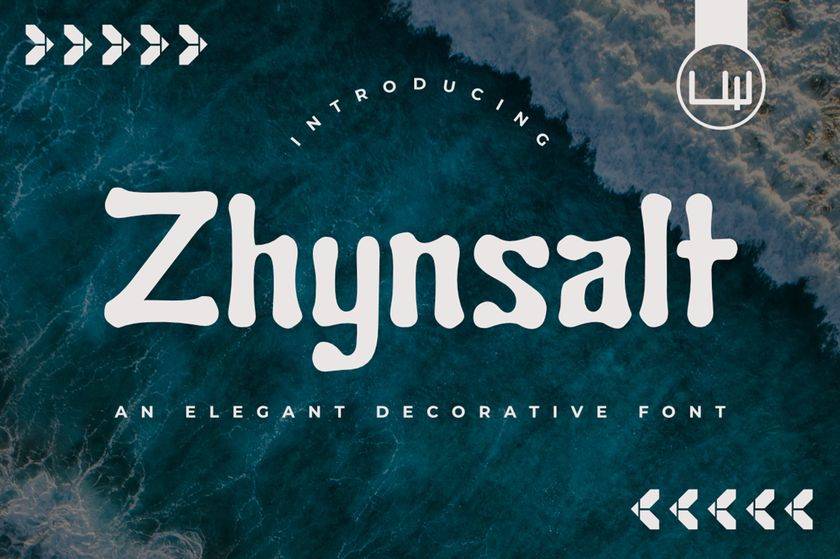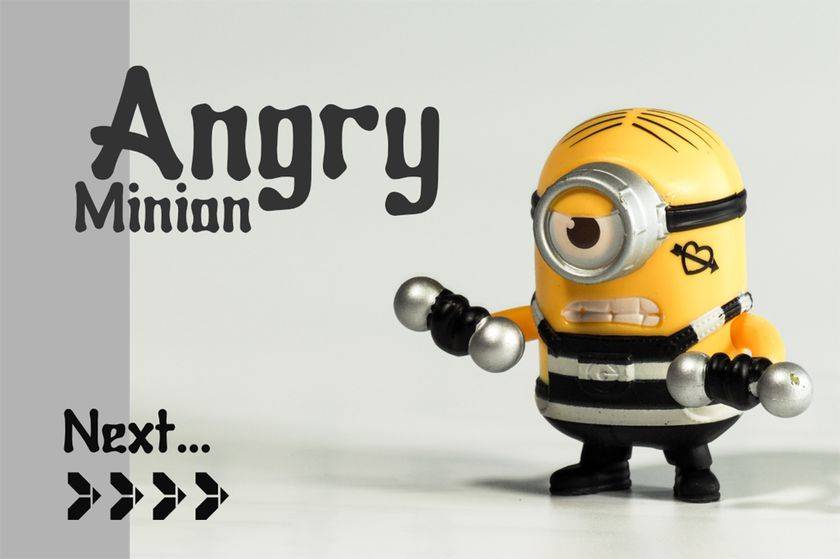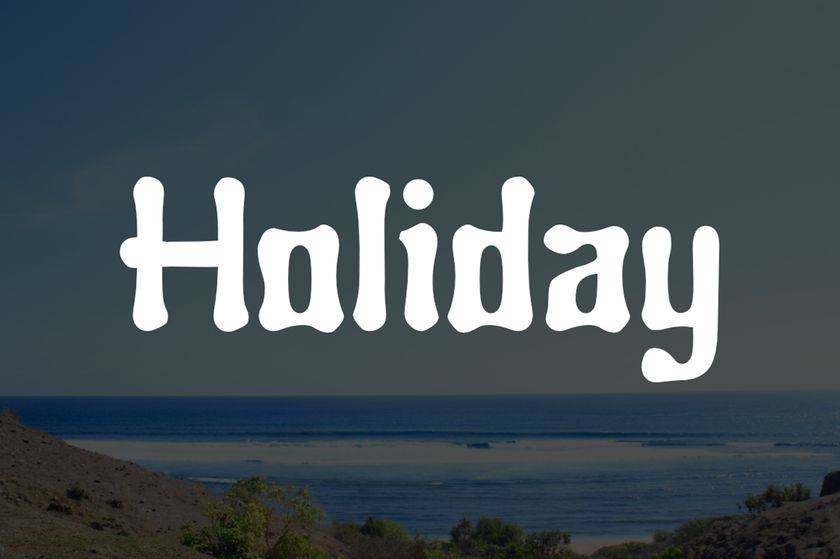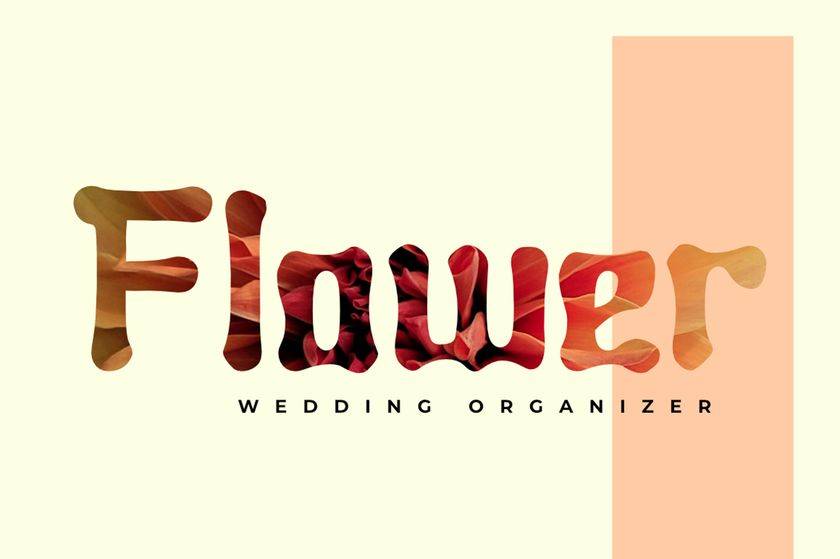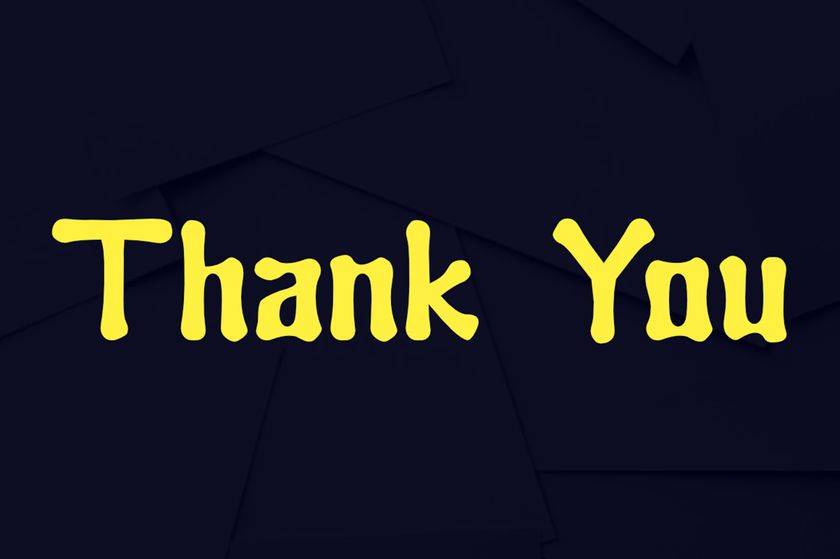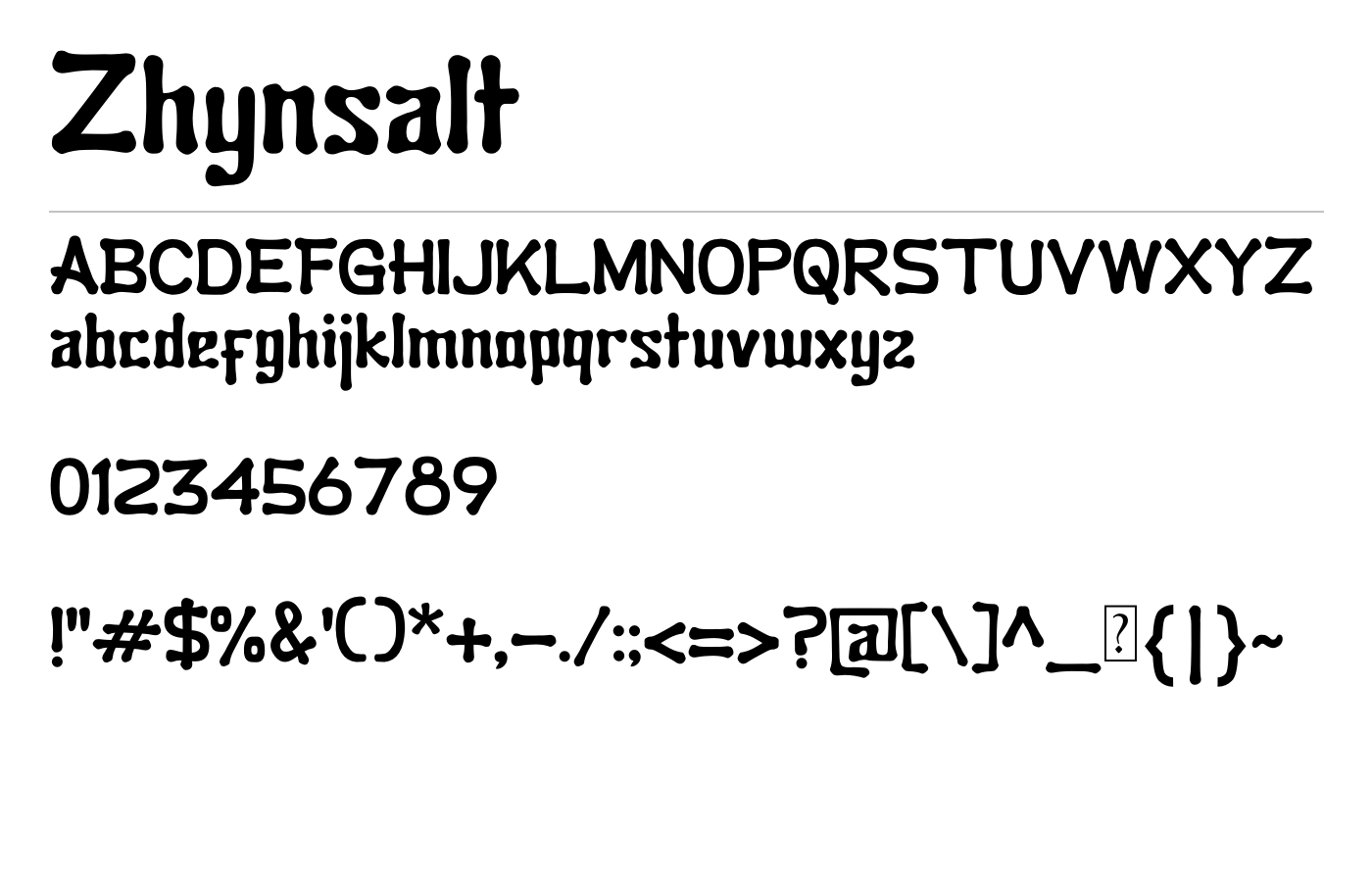
Zhynsalt is a quirky and playful serif font with a handcrafted, irregular feel that adds personality to any design. Featuring moderate weight and unique letterforms with soft, rounded edges and slight stroke contrast, it captures a friendly and informal tone perfect for creative projects and casual branding. Its distinct style shines in headlines, logos, and posters where a bold, approachable impression is desired.